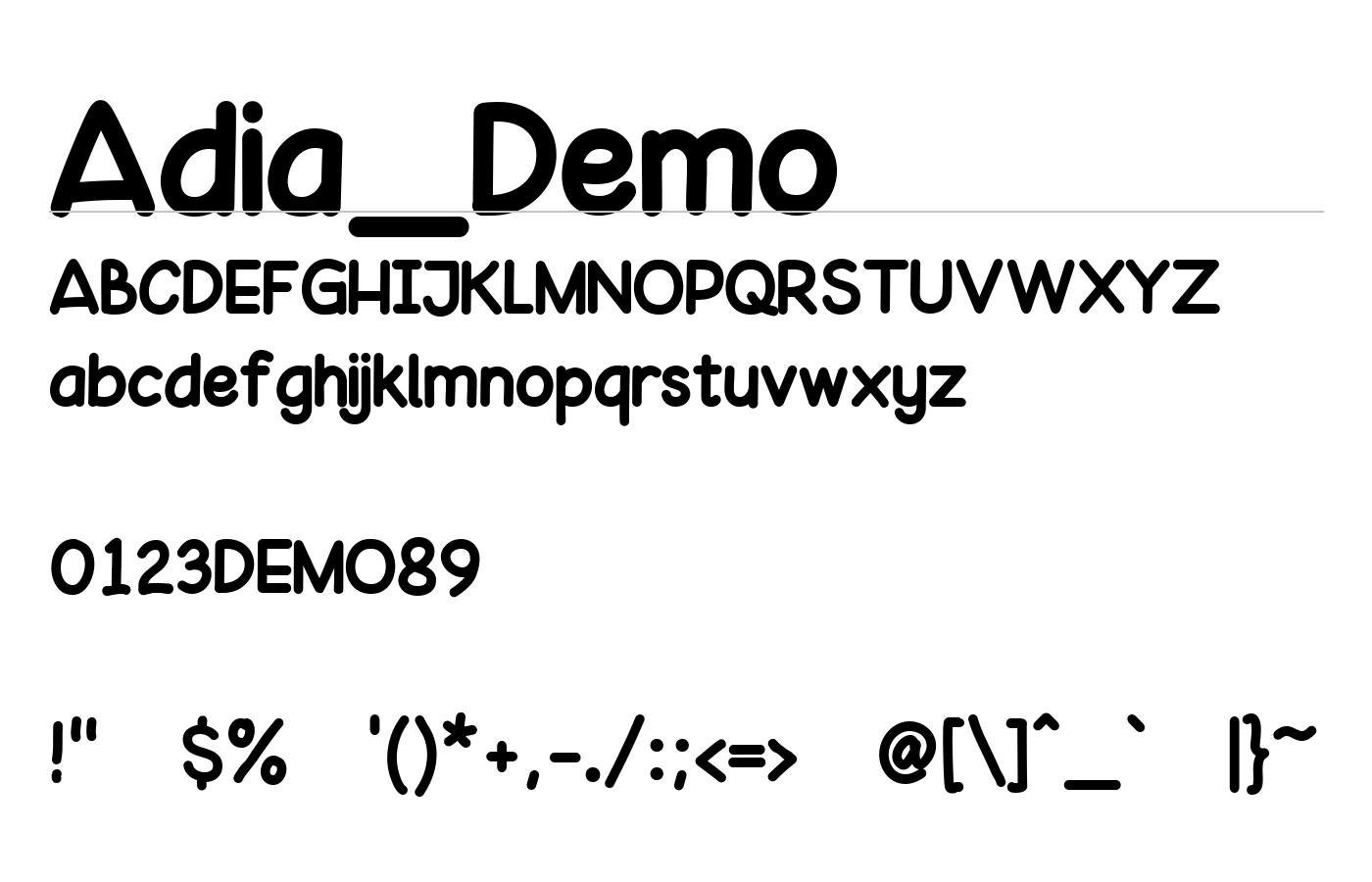
Adia_Demo is a playful, rounded sans serif font with a casual handwritten feel, featuring medium weight and open letterforms that create a friendly and approachable vibe. Its single-story lowercase letters and soft curves make it ideal for informal designs, children's books, or creative projects that seek a warm, inviting personality. This font works well for logos, headlines, and packaging where a cheerful, relaxed tone is desired.
Adia_Demo Font
About Adia_Demo Font
| Font family | Adia_Demo Font |
| Designer | Almaz Studio™ |